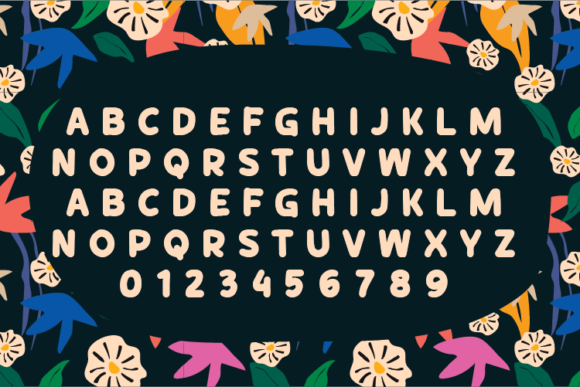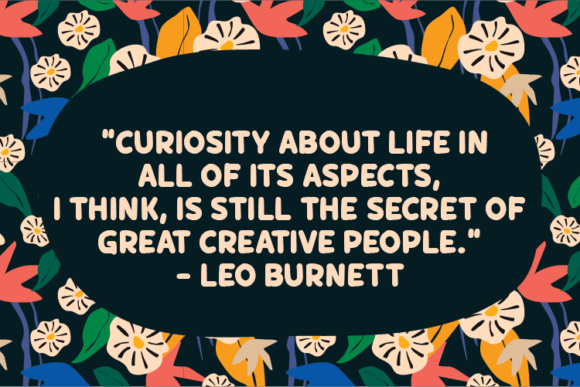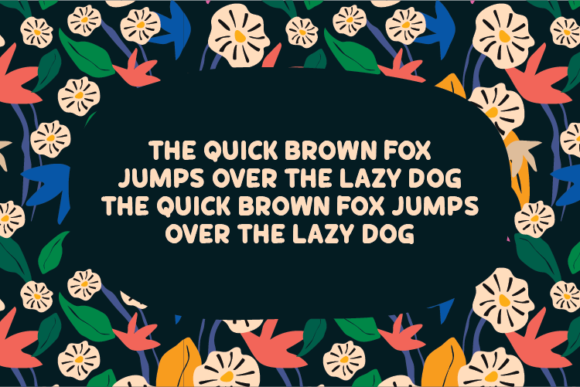
Introduction to Happy Handlettering Font
Happy Handlettering is a chubby display font made without changing a single node in each character’s indentation.
This makes this font very interesting and unique Perfect for quotes, notes, tees, and any product design.
Key Features of Happy Handlettering Font
Why Choose Happy Handlettering Font?